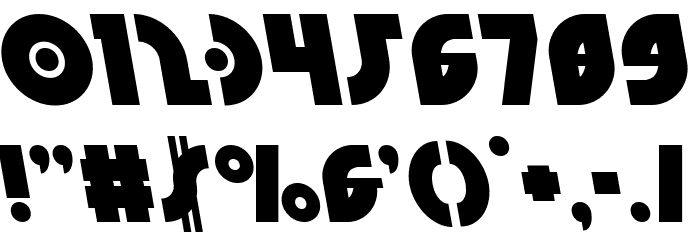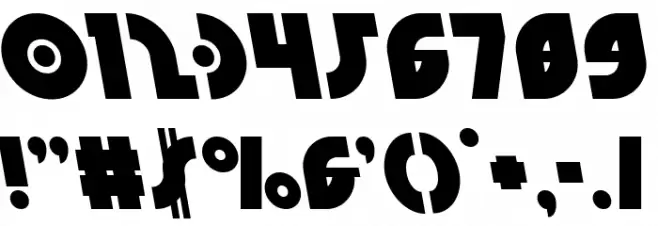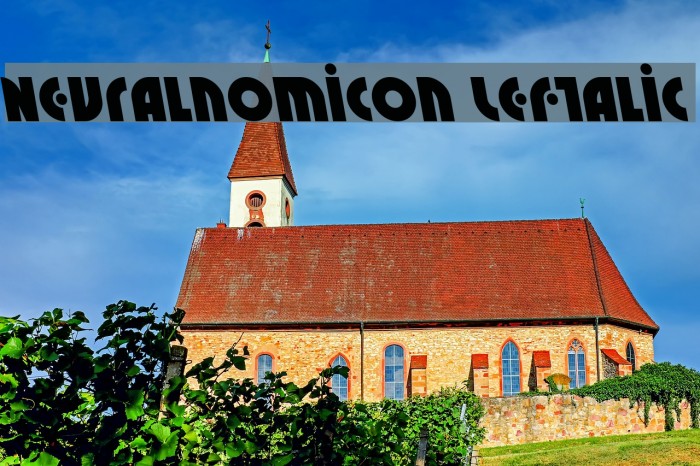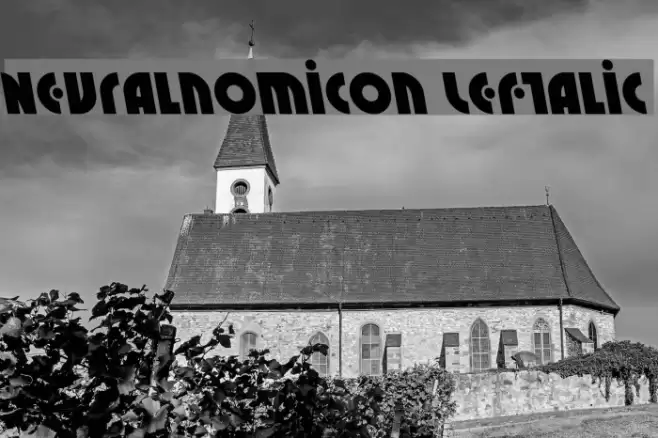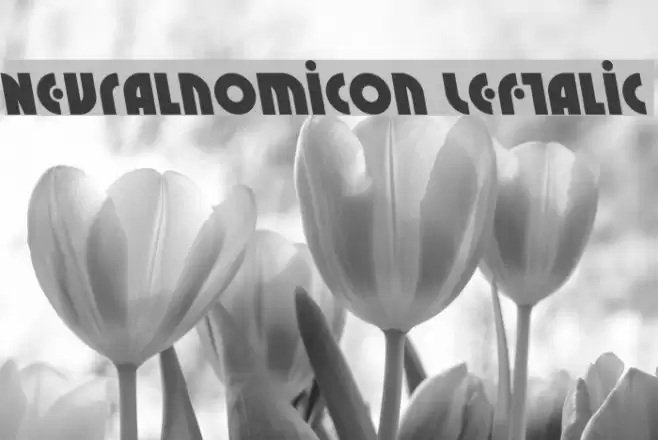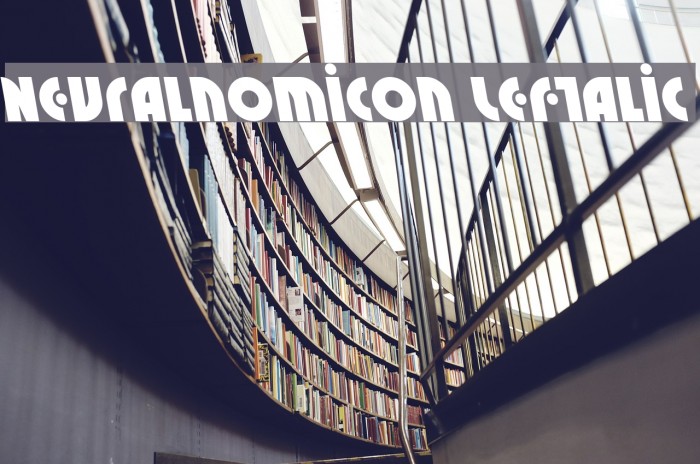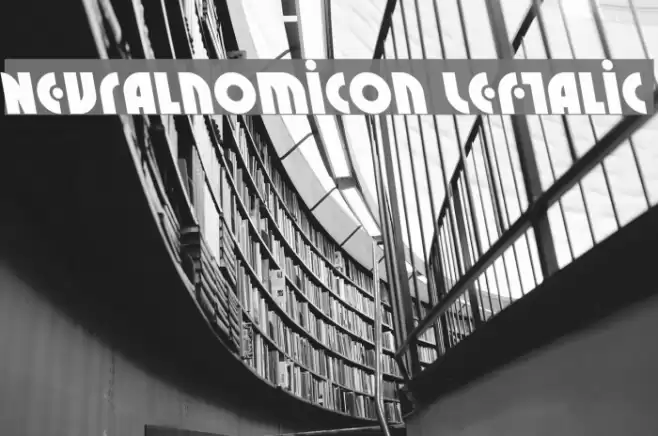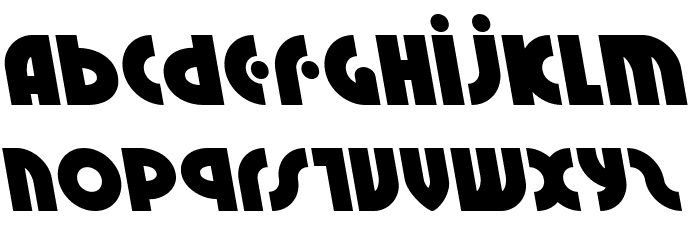
Neuralnomicon Leftalic Font
Neuralnomicon Leftalic Description
This font features a bold and futuristic design with a unique geometric style. The characters are constructed with thick, solid strokes that create a strong visual impact. Each letter is distinct, incorporating sharp angles and circular cutouts that add a sense of modernity and innovation. The uppercase and lowercase letters maintain a consistent style, while the numbers and special characters follow the same bold and dynamic aesthetic. The font's design is highly decorative, making it suitable for projects that require a standout, eye-catching typeface.
A bold, futuristic font with geometric and decorative elements from Uncategorized fonts.
- Proposed Projects: Ideal for sci-fi themed designs, video game titles, posters, and branding that requires a modern and bold statement.